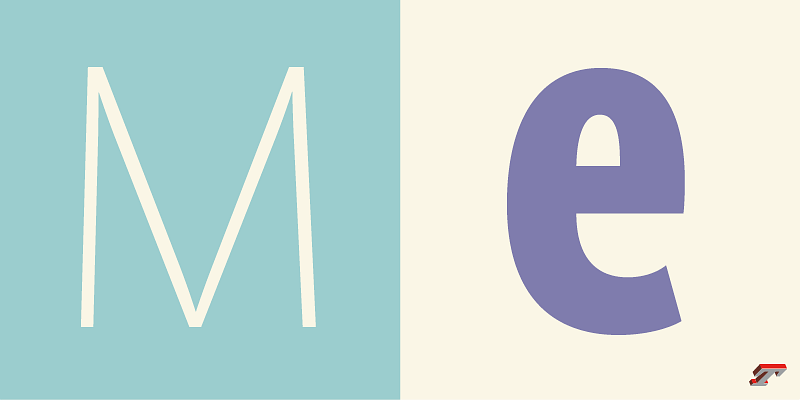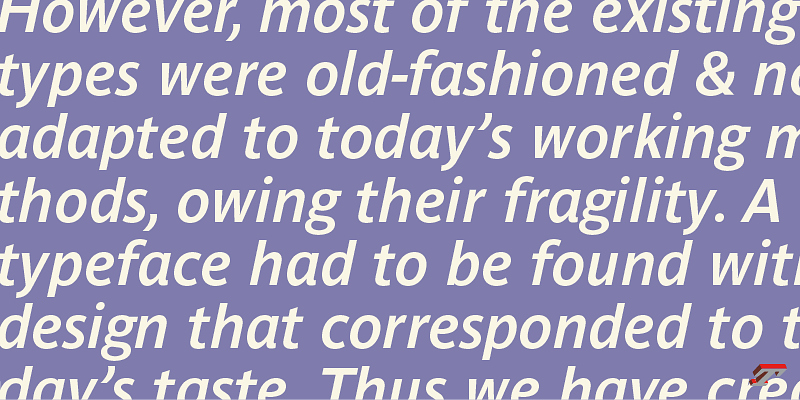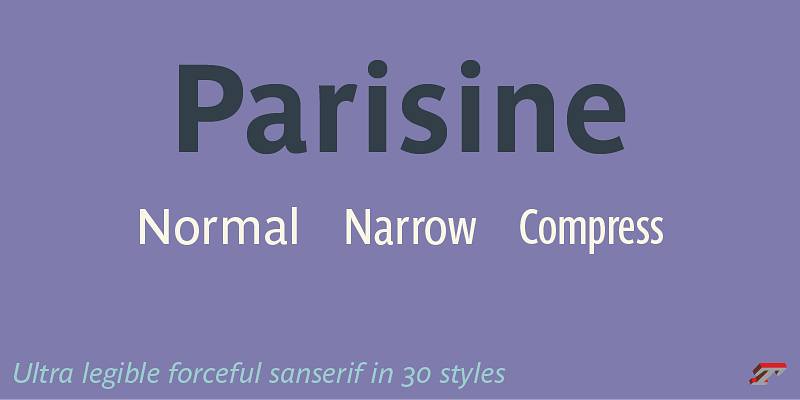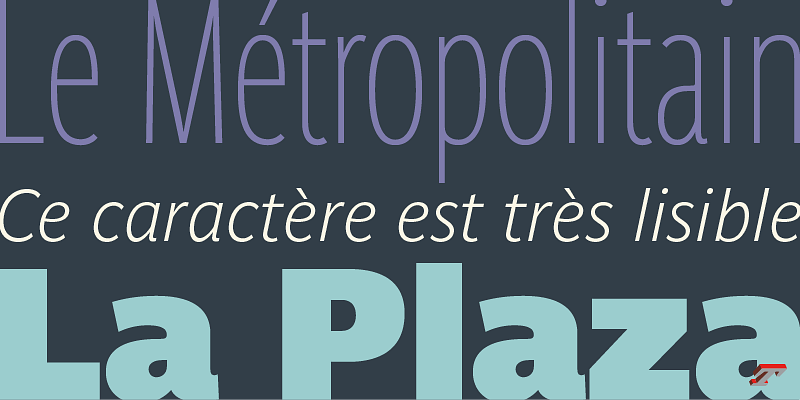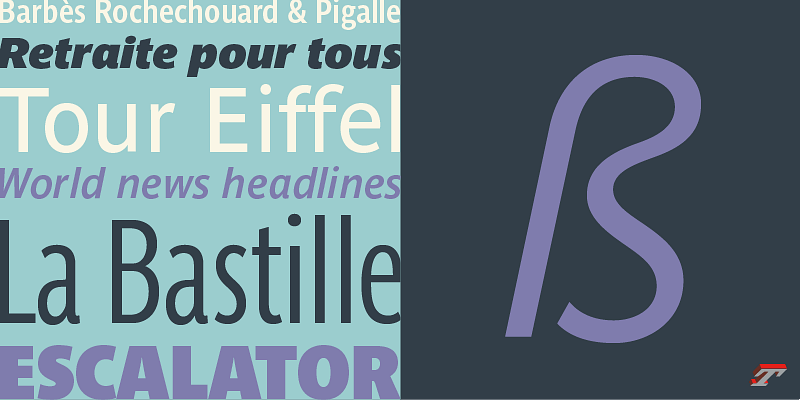
The Paris Métro, tramways, and buses use the Parisine typeface, which was designed by Jean-François Porchez in 1996 for RATP to ensure signage legibility.
In the subsequent years, Parisine became synonymous with the Metro and a symbol of Paris used in advertising and more.